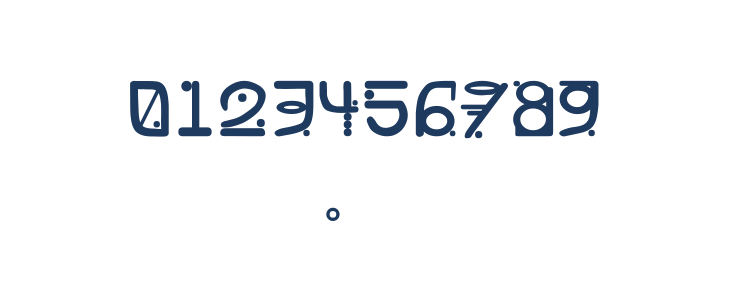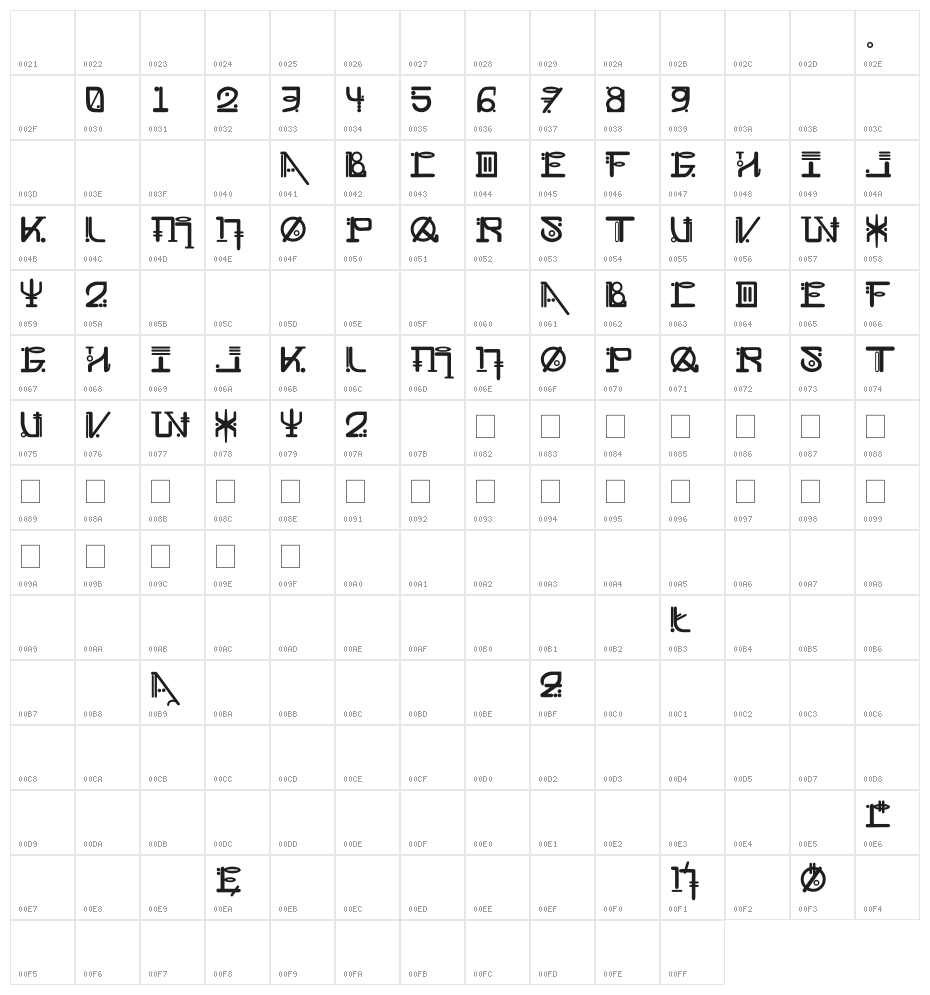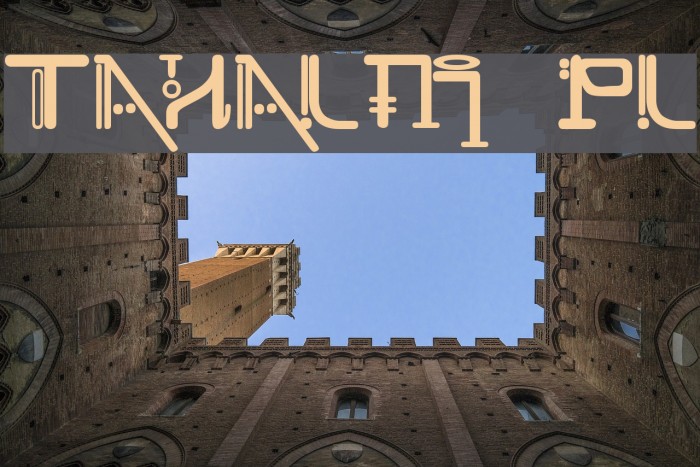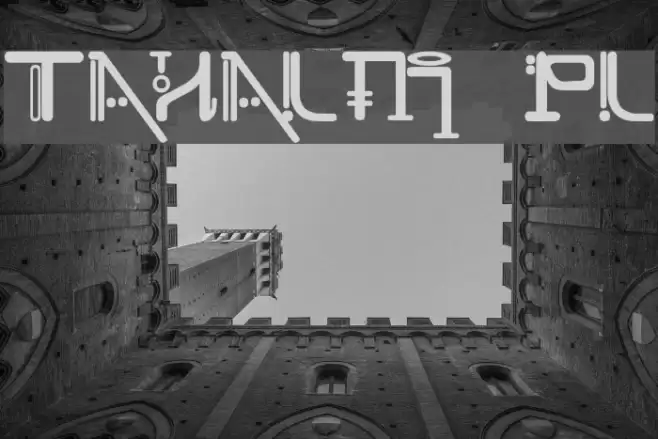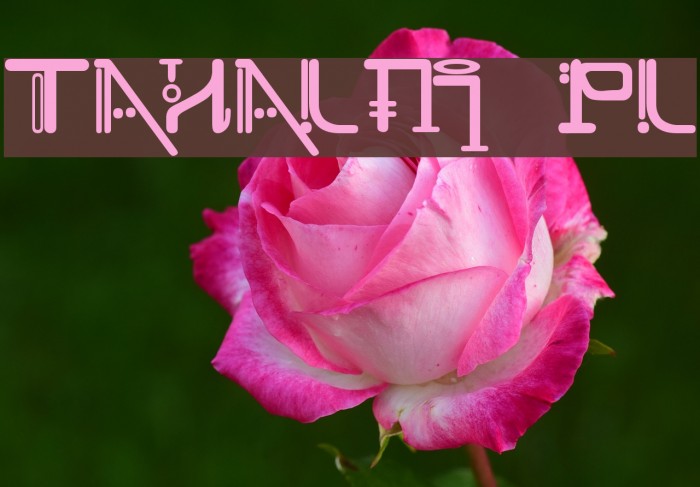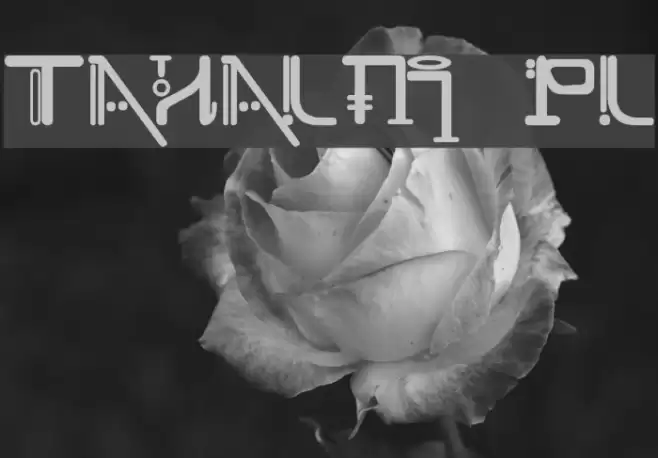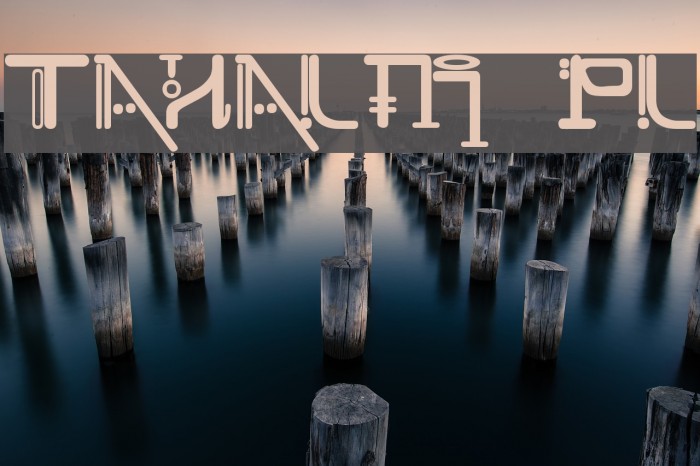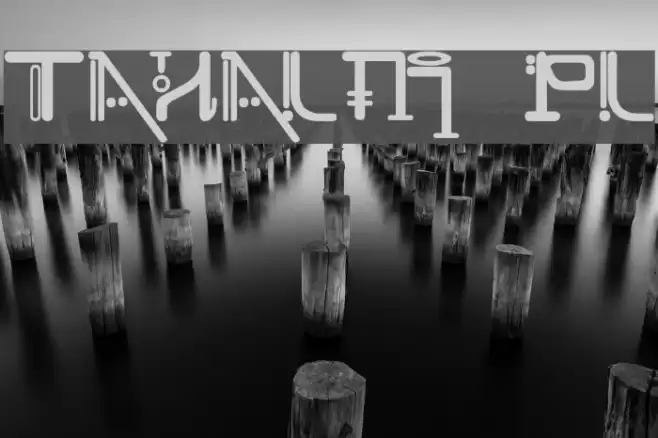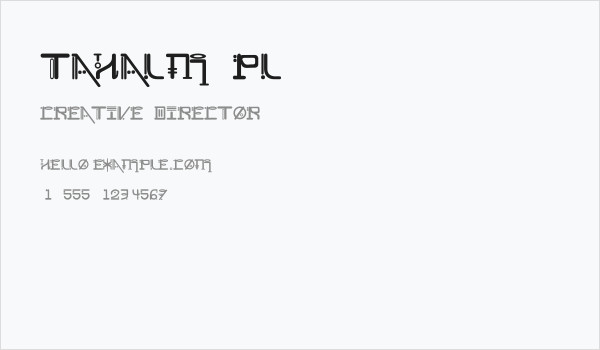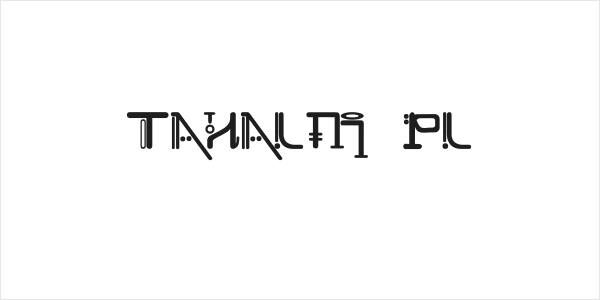
Tahalm pl Font
Tahalm pl Description
This font features a highly decorative and intricate design, characterized by unique geometric shapes and patterns within each character. The letters and numbers are adorned with dots and lines, creating a futuristic and abstract appearance. The overall style is bold and eye-catching, making it suitable for creative and artistic projects. The font's distinctiveness lies in its ability to merge traditional letterforms with modern, ornamental elements, resulting in a visually striking typeface. Its complex design suggests a theme of innovation and creativity, ideal for projects that require a standout visual identity.
| Overall Style | Futuristic, Decorative |
| Proposed Projects | Ideal for branding, posters, album covers, and any project needing a bold, artistic touch. |